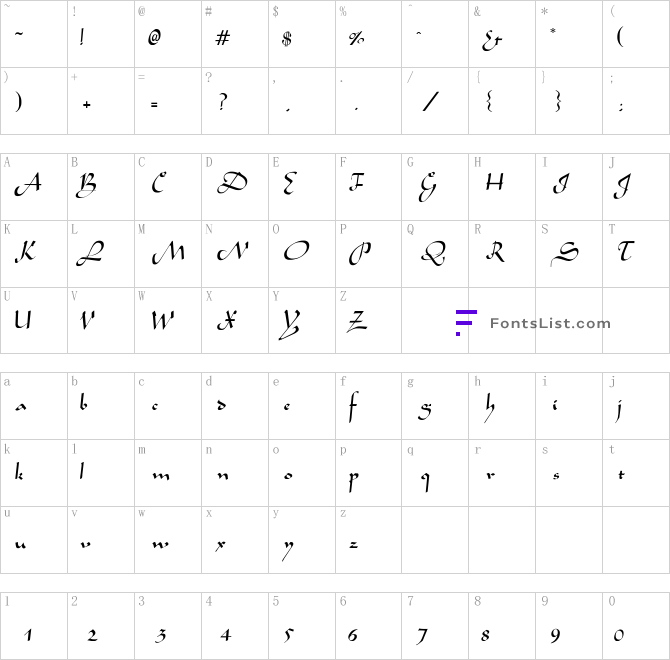
- Font Name:Arabian
Arabian.ttf is a very beautiful artistic font, Arabian.ttf is widely used in the design and printing of various books and pictures,Arabian.ttf has a strong visual impact,Arabian.ttf is a commonly used font in newspapers, magazines and books, and is used in posters, e-commerce Poster design, store design, logo design, font design and other fields.Arabian.